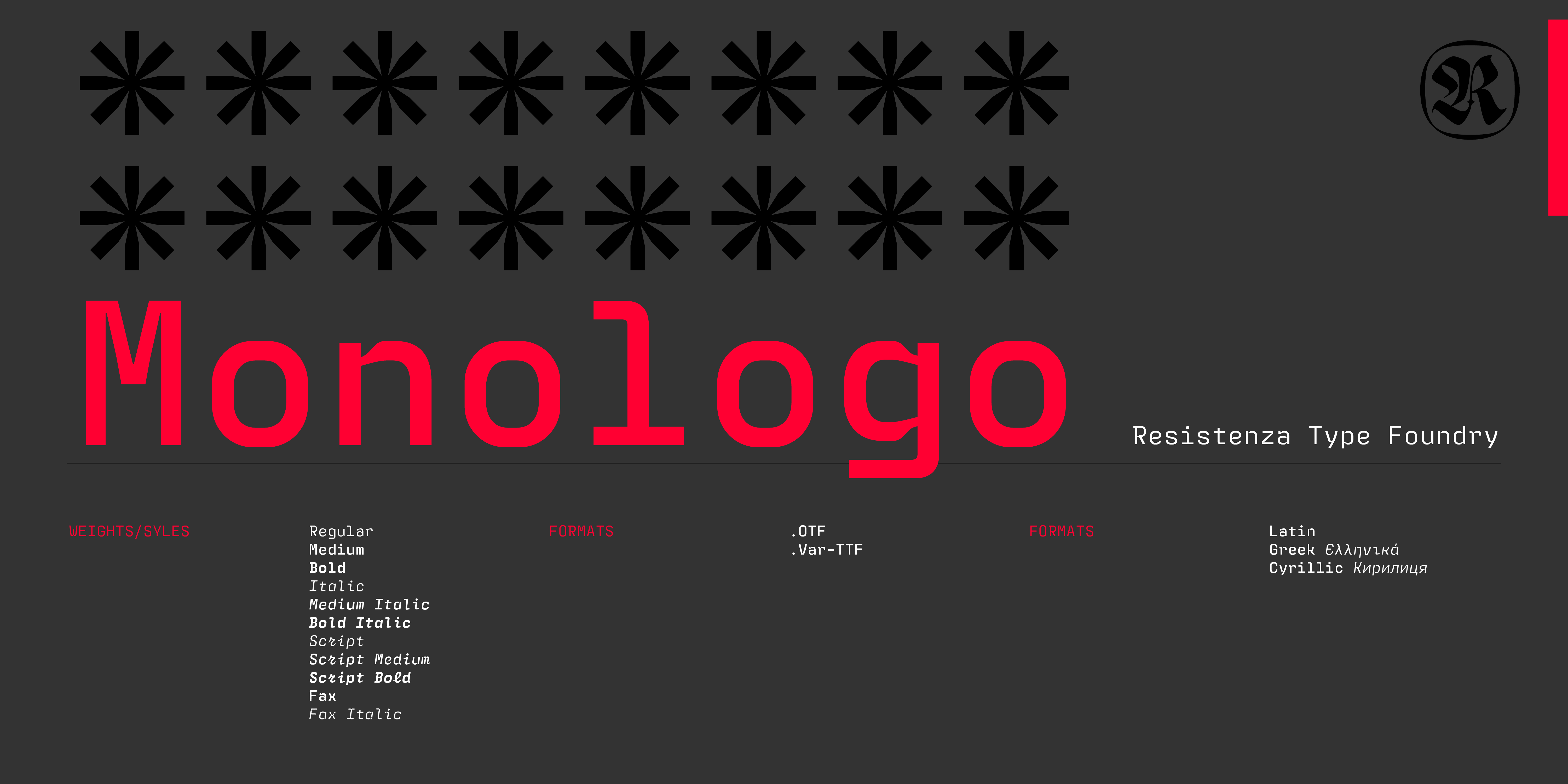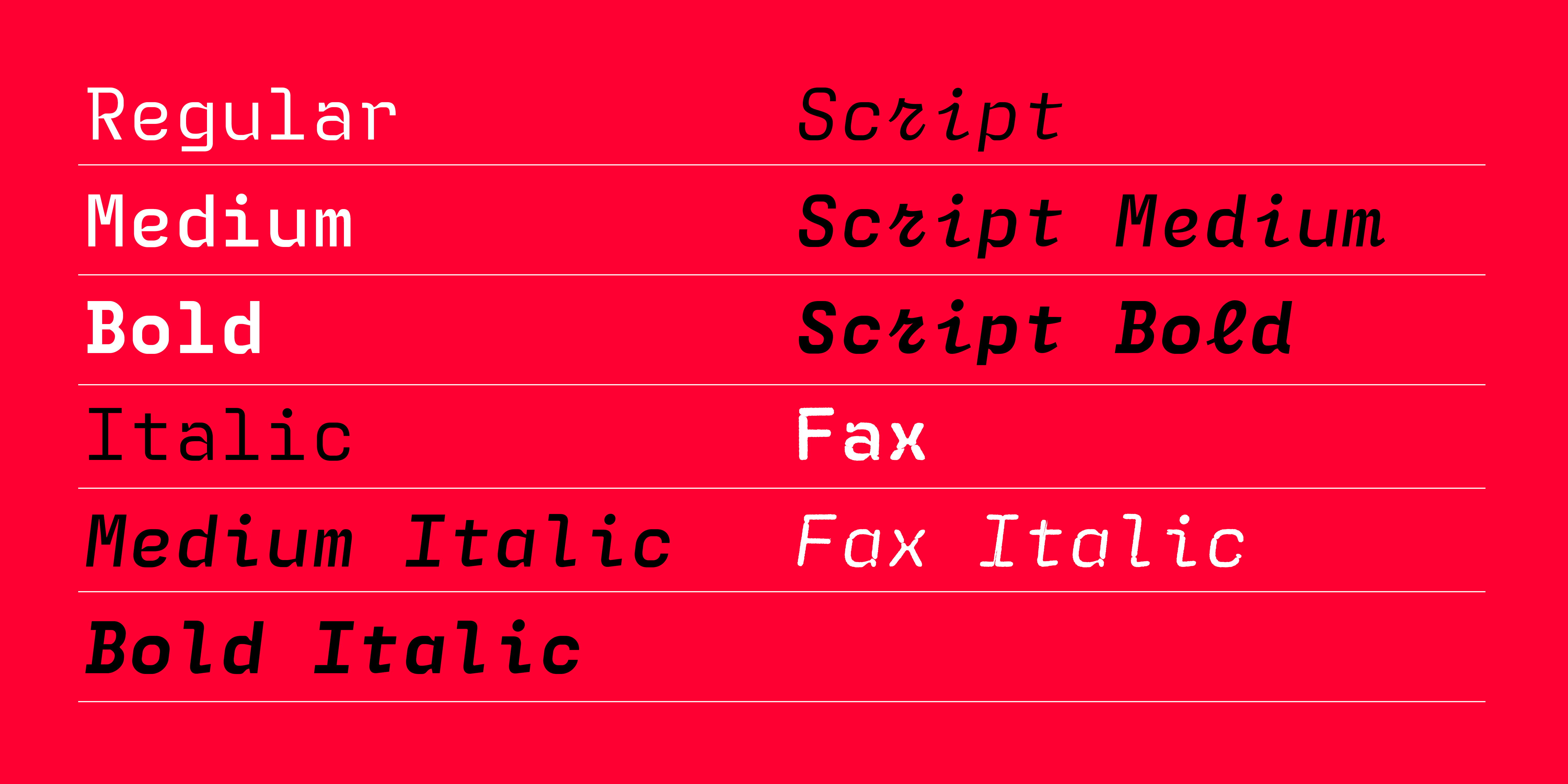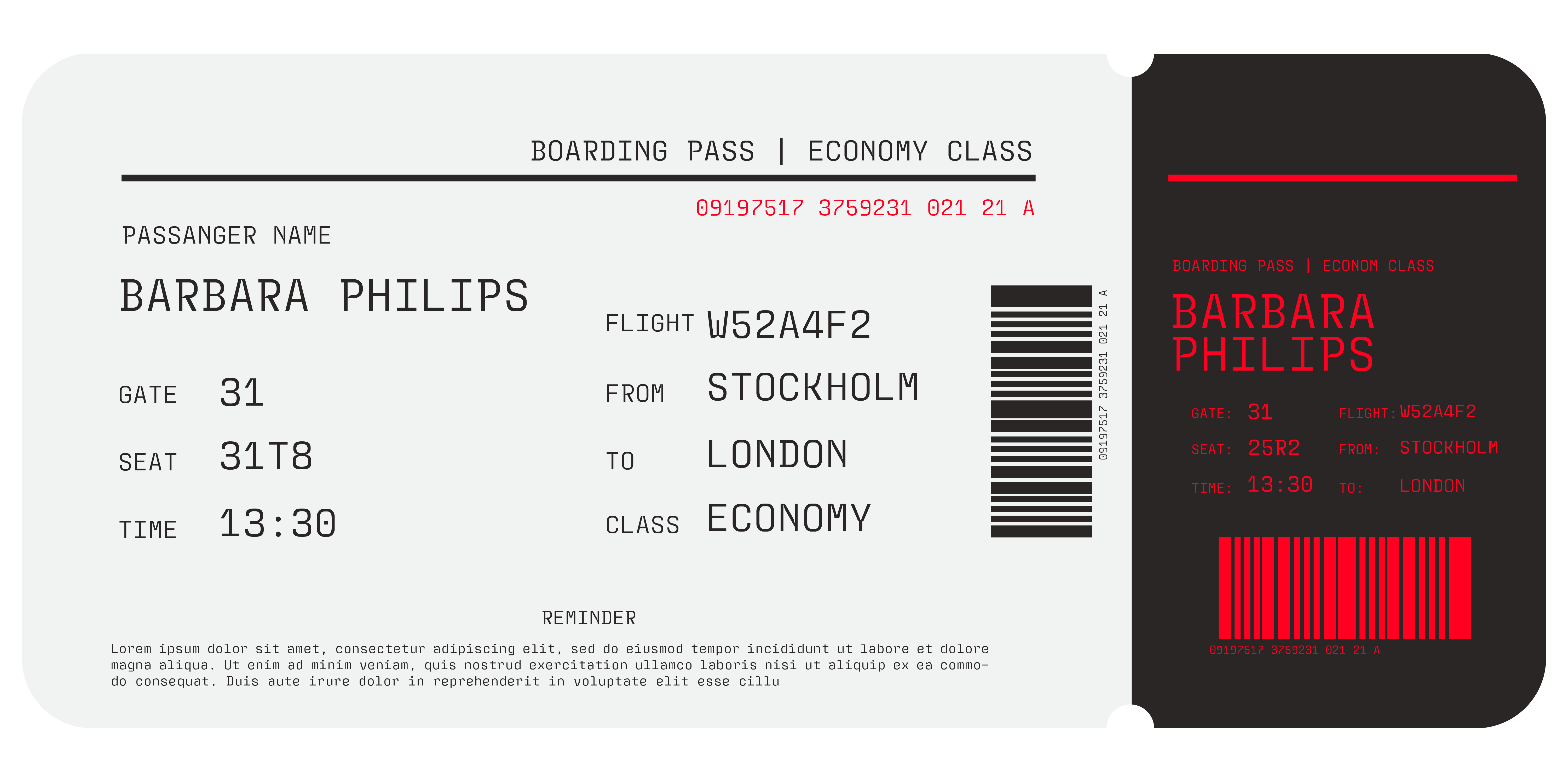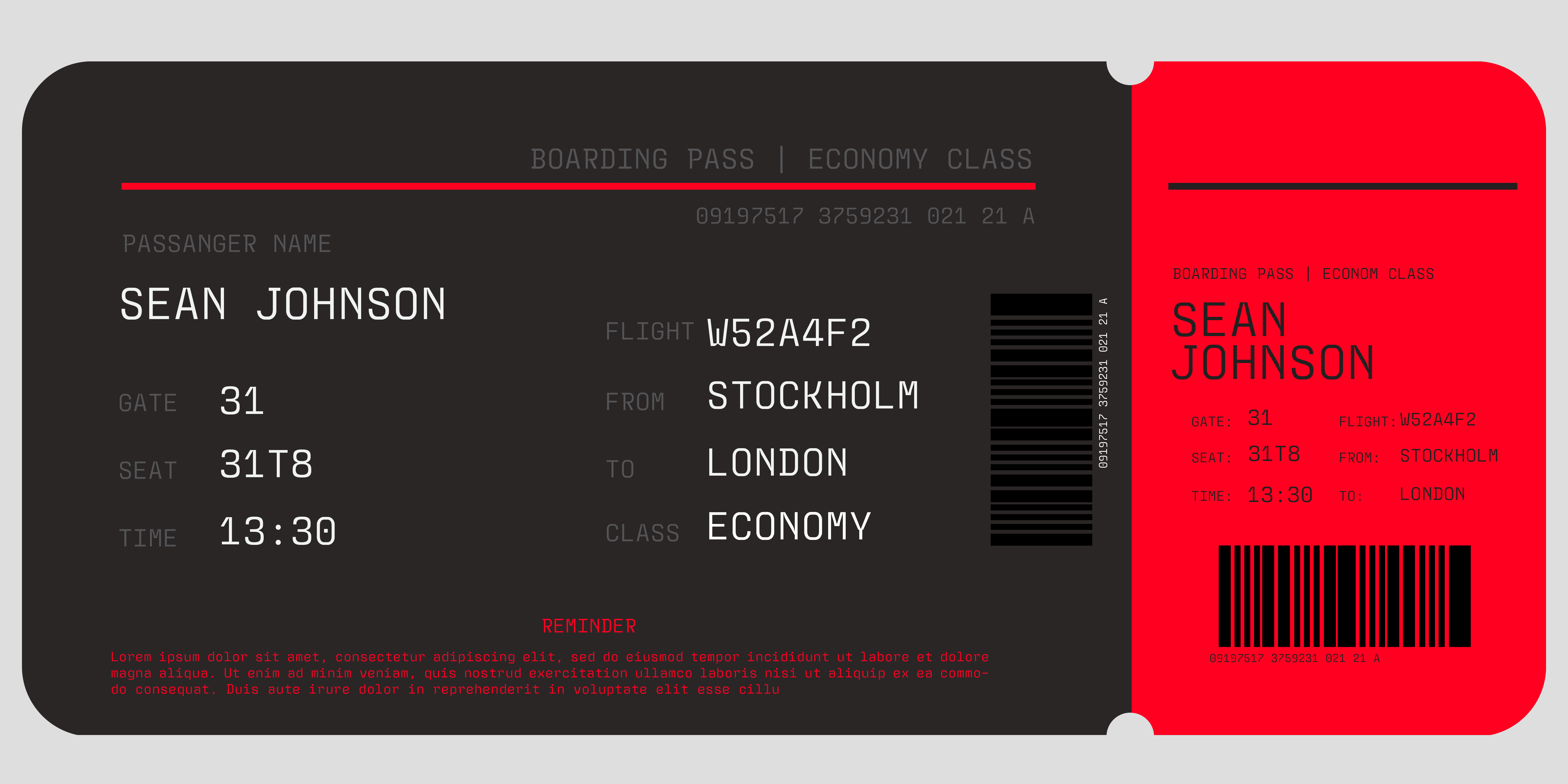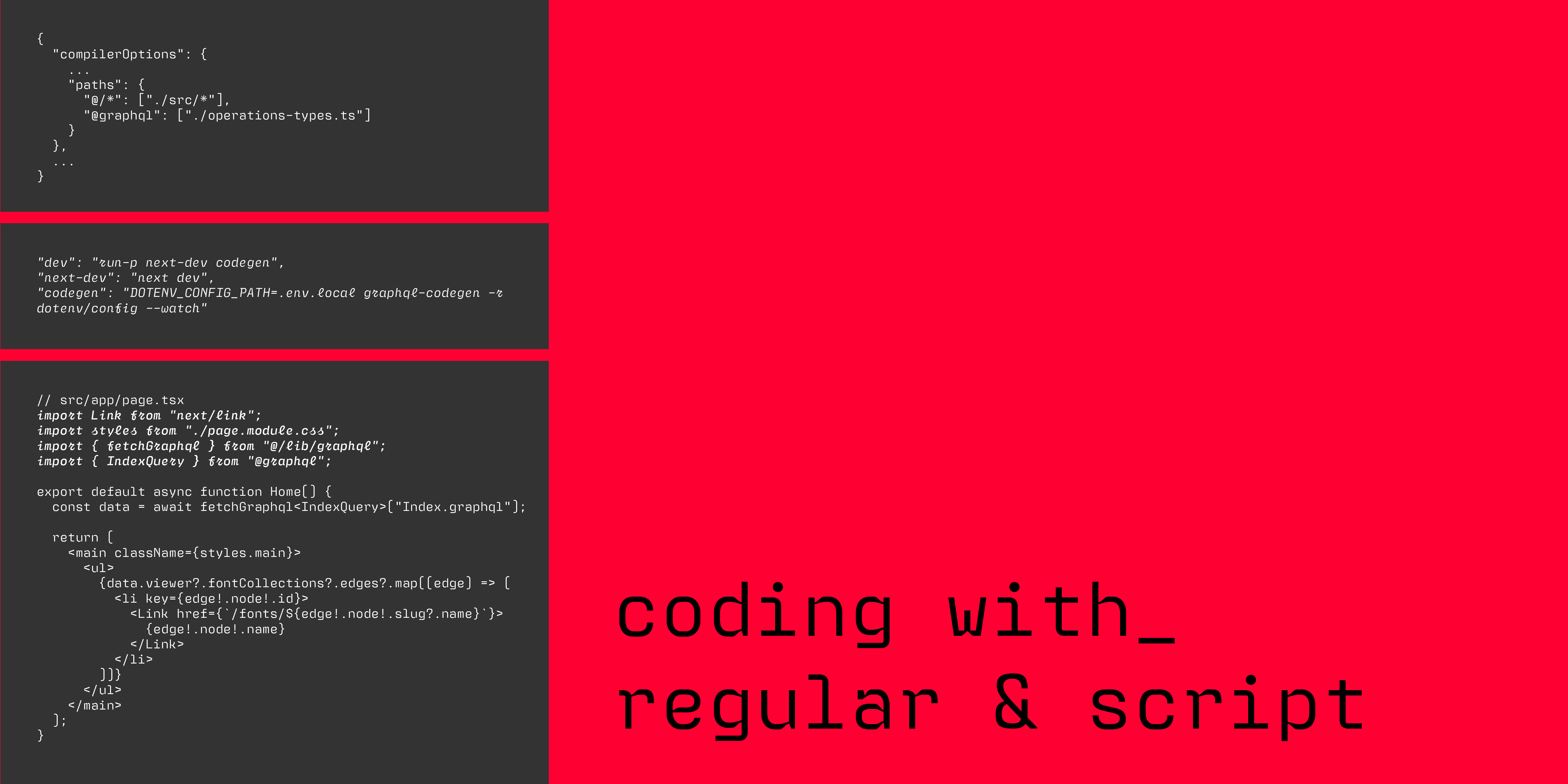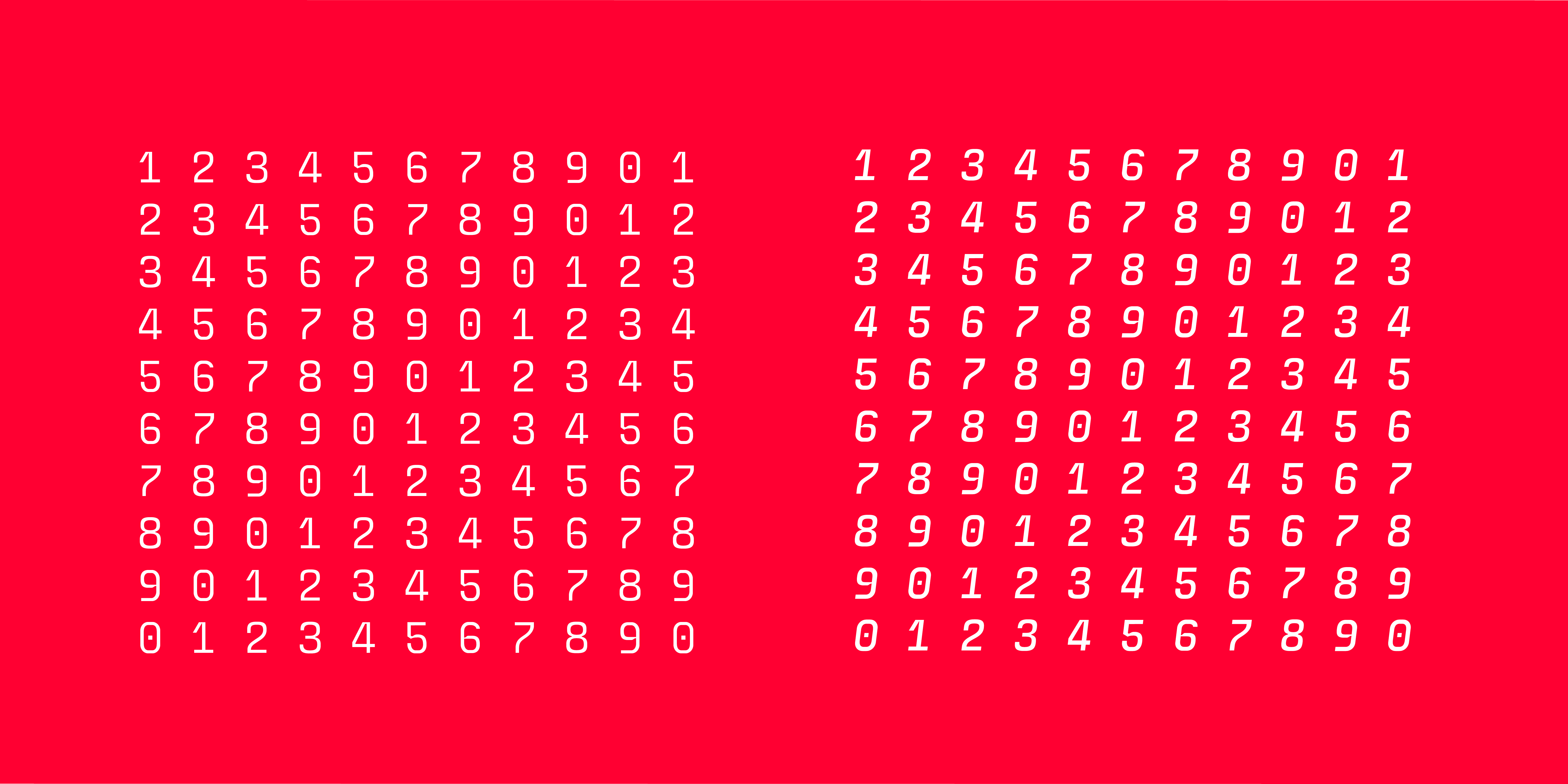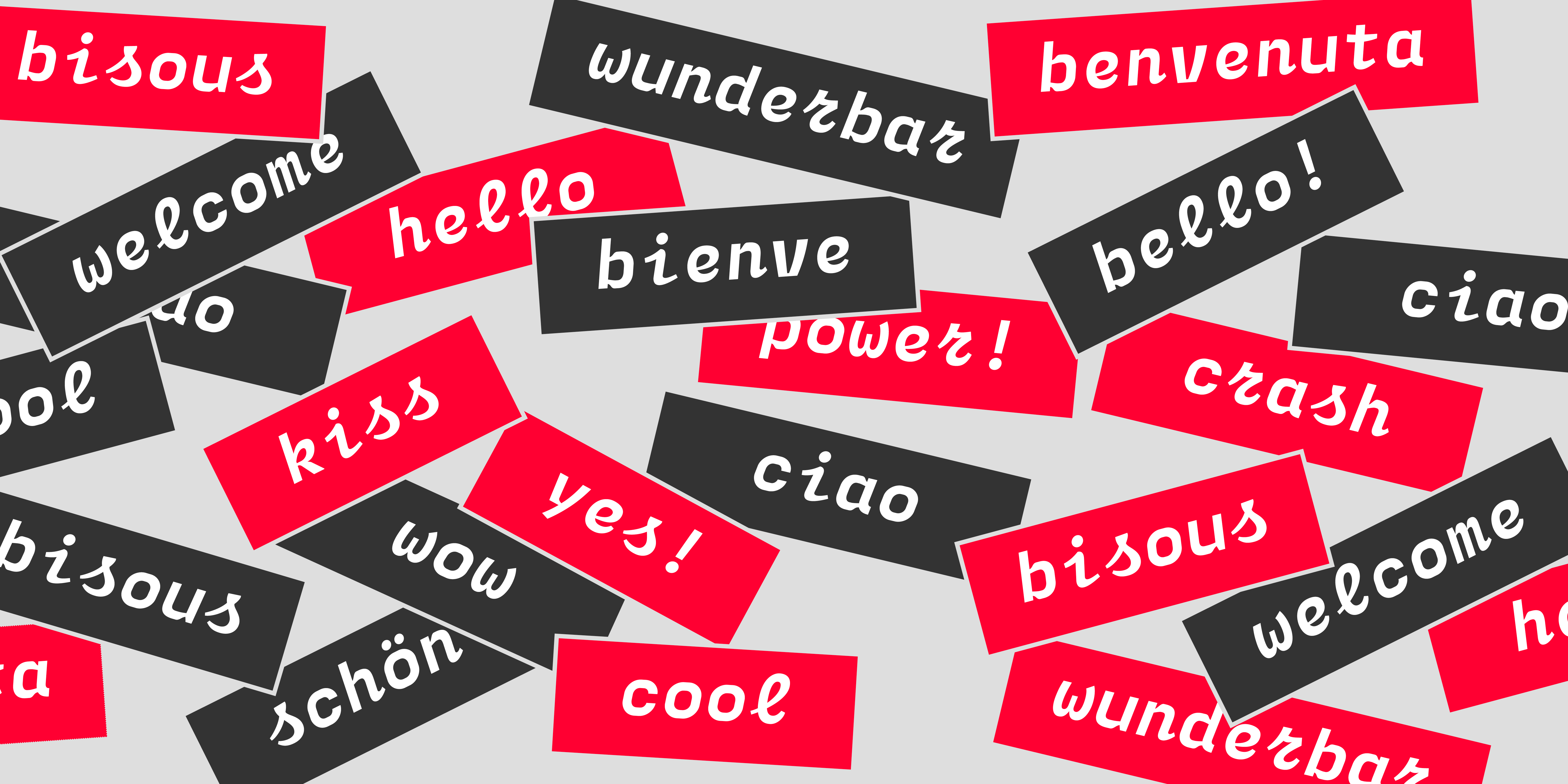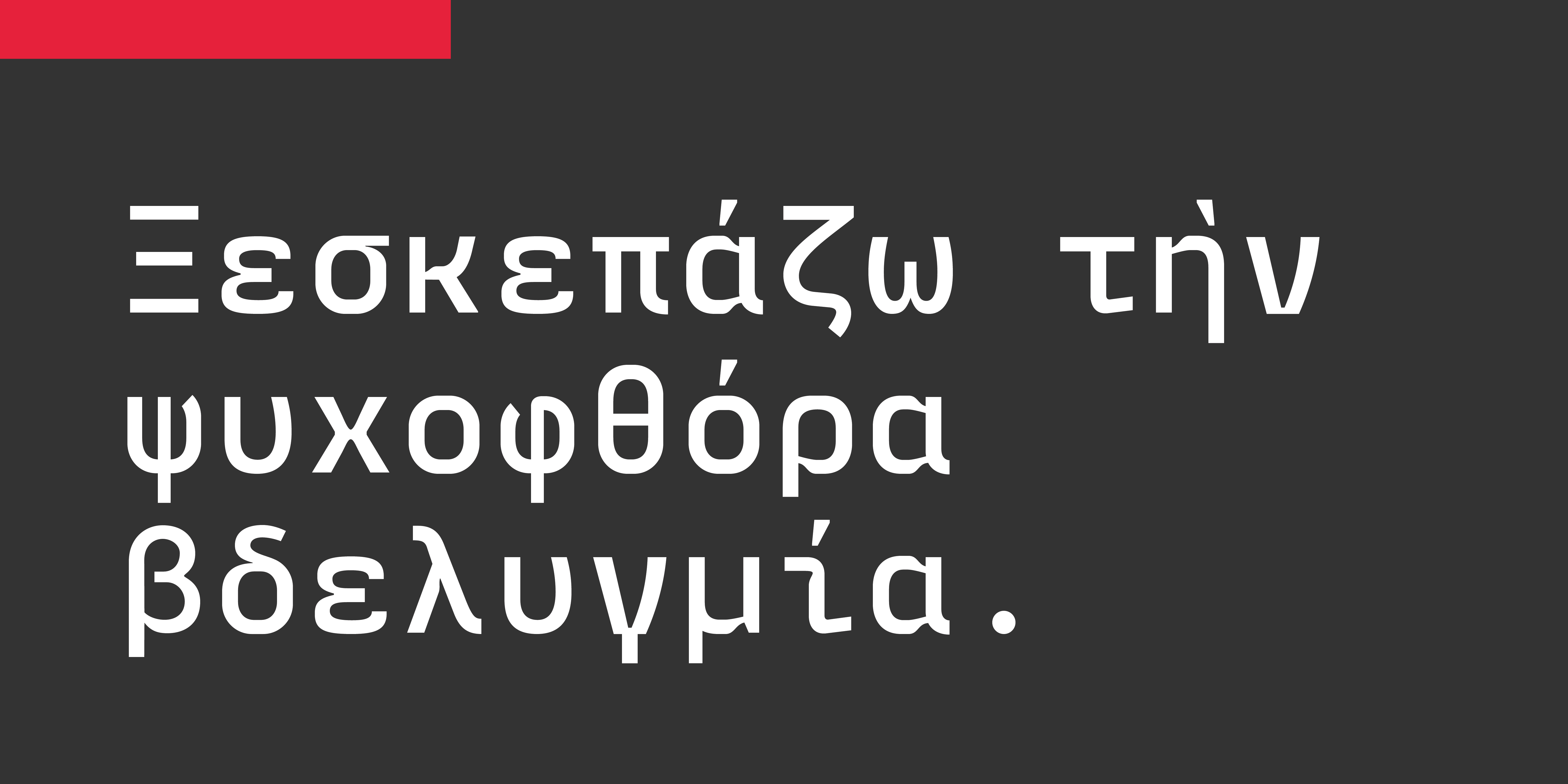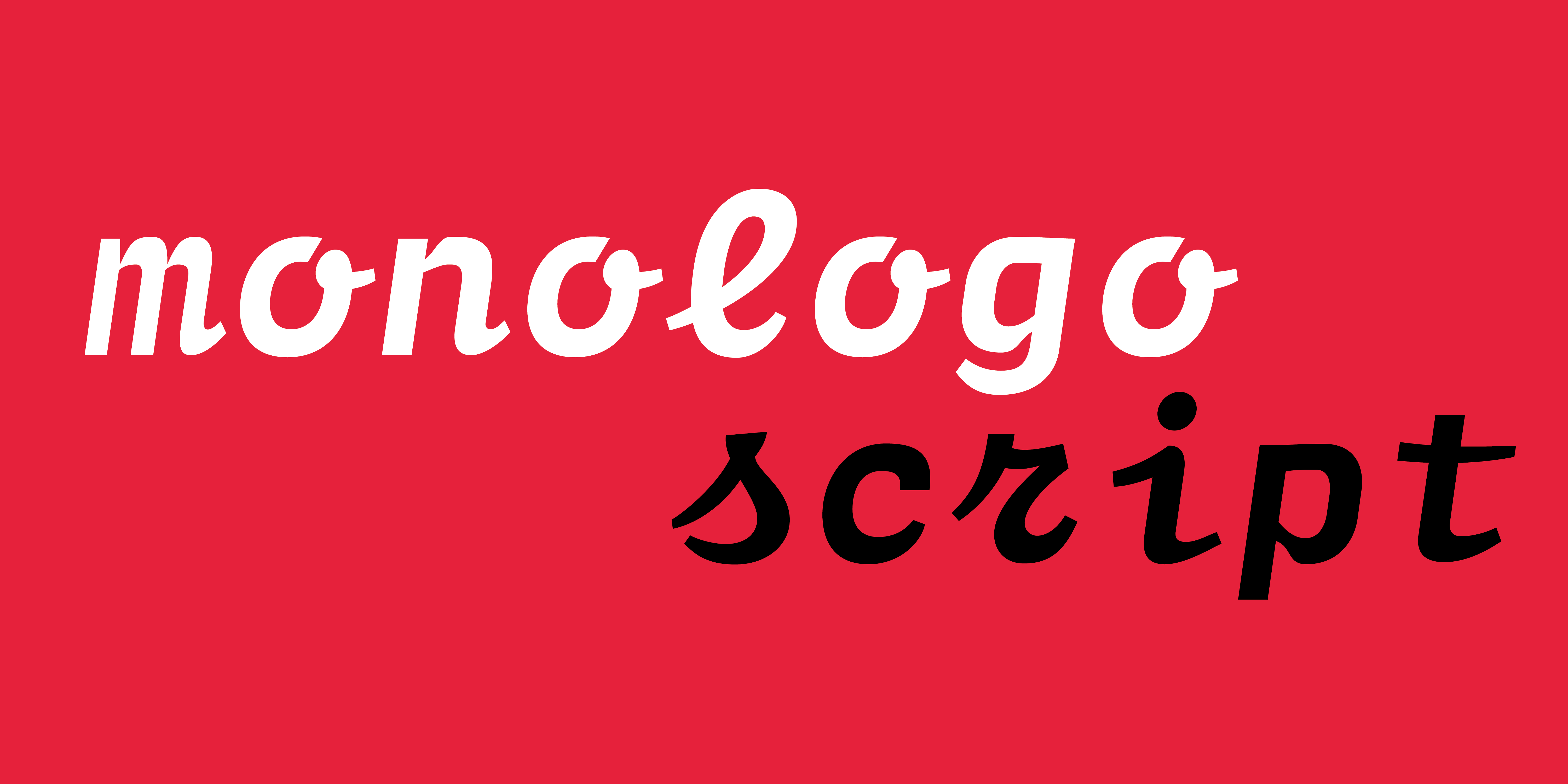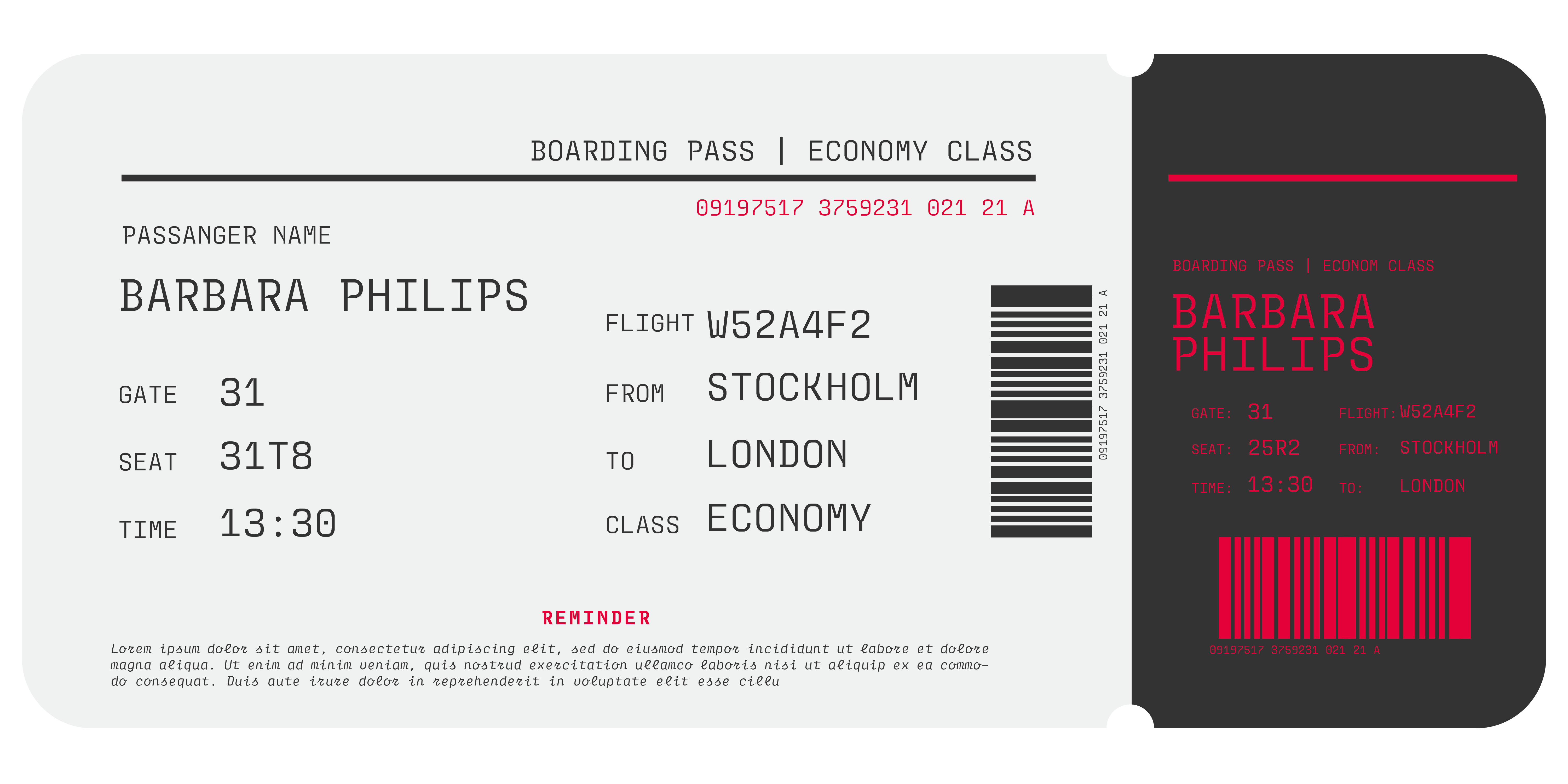
Monologo
Regular Medium Bold Italic Medium Italic Bold Italic Script Script Medium Script Bold Rounded Medium Rounded BoldA sophisticated monospaced type family
Monologo
Designed by Resistenza Type FoundryWith its comprehensive Latin Extended glyph set, it facilitates seamless typesetting for English and various Western European languages, ensuring clarity and readability across diverse linguistic contexts.
Embedded within its design are a myriad of typographic features, including timeless old-style figures meticulously integrated to enhance the visual harmony and aesthetic appeal of any project. Available in Latin, Greek and Cyrillic.